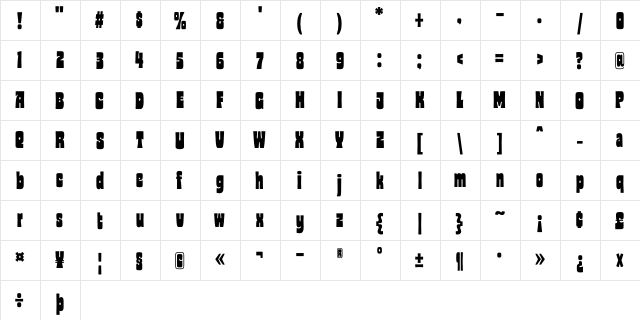
Glaw Typeface Condensed
| Foundry | Flavortype |
| Designer | Ilham Herry |
Design Context for Glaw Typeface Typeface
Glaw Typeface is a composed and adaptable typeface that performs quietly and consistently across a wide range of design contexts. The condensed width makes it efficient for tight spaces without sacrificing legibility.